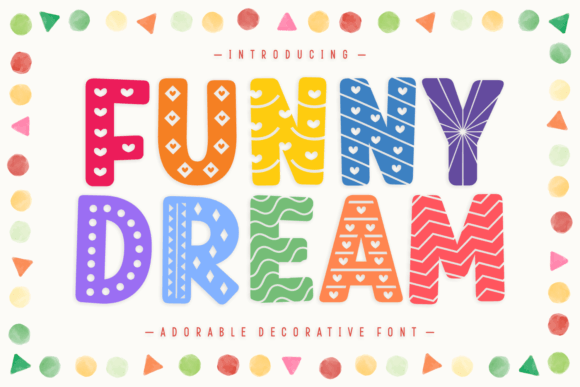
Step into the realm of enchanting typography with the Funny Dream Font, a captivating creation by Situjuh, where charm and playfulness intertwine. This decorative font exudes an infectious cheerfulness, promising to breathe life into your designs and leave an unforgettable impression on your audience.
With its whimsical curves and playful strokes, Funny Dream Font captivates the eye and sparks imagination. Each letter dances across the page, carrying a message of joy and positivity that is sure to uplift the spirits. Its versatility knows no bounds, making it the perfect choice for a myriad of projects, from cheerful invitations and eye-catching posters to vibrant T-shirt designs and enchanting social media posts.
Funny Dream Font is meticulously crafted to evoke a sense of wonder and happiness. Its rounded edges and dynamic letterforms create a visual feast that commands attention and invites exploration. Whether you're crafting a children's book, designing a playful logo, or simply adding a touch of whimsy to your everyday correspondence, this font is guaranteed to make your words come alive.
But Funny Dream Font is more than just a pretty face. It's a powerful tool that empowers you to communicate your message with clarity and impact. Its legible letterforms ensure that your words are easily understood, while its unique character adds a touch of personality that sets your work apart.
So, embrace the magic of Funny Dream Font and let your creativity soar. Its vibrant energy and enchanting charm will transform your designs into captivating works of art that leave a lasting impression. Dive into a world of joy and imagination, and experience the transformative power of this extraordinary font today!